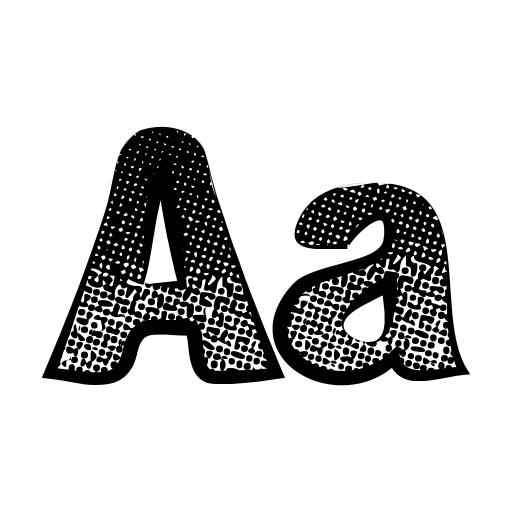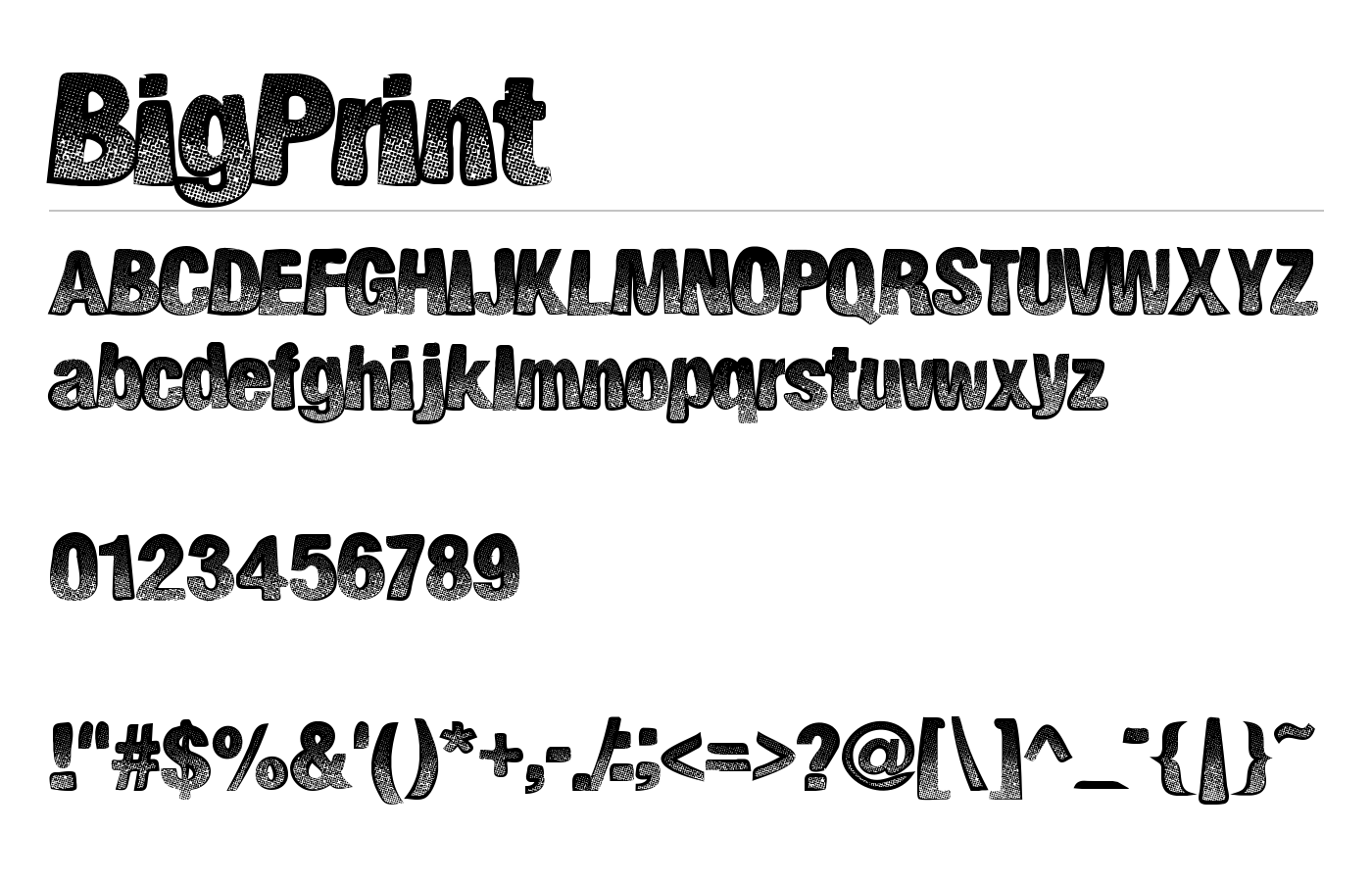
BigPrint Font is a bold, playful sans serif typeface with a distinctive textured fade effect that adds a vintage, hand-printed charm. Its rounded letterforms and consistent weight make it eye-catching and approachable, perfect for fun and creative projects like posters, logos, and packaging where a relaxed, quirky personality is desired. This font works well in large display uses, bringing energy and a tactile feel to any design.
BigPrint Font
About BigPrint Font
| Font family | BigPrint Font |
| Designer | Max Infeld |